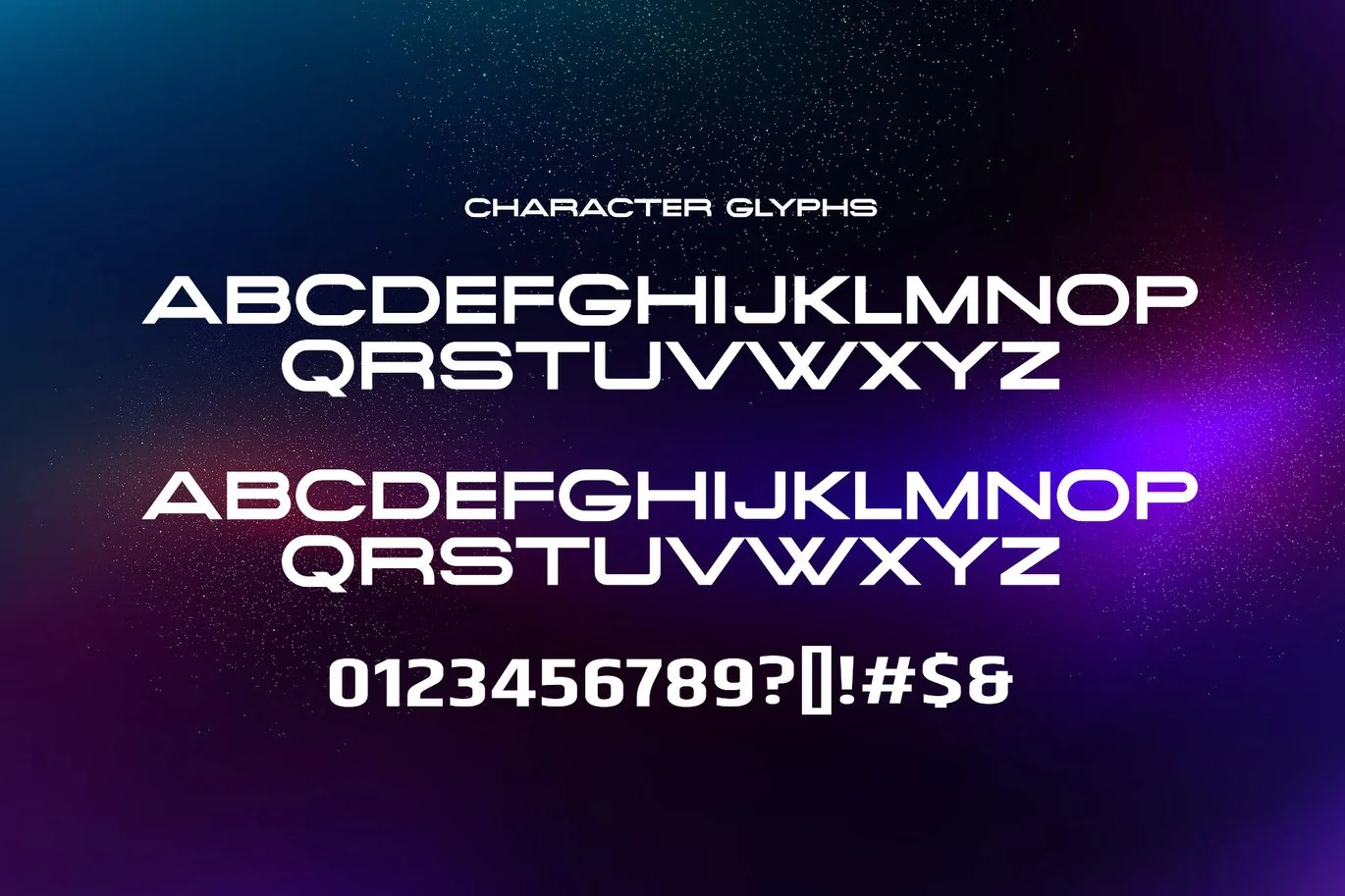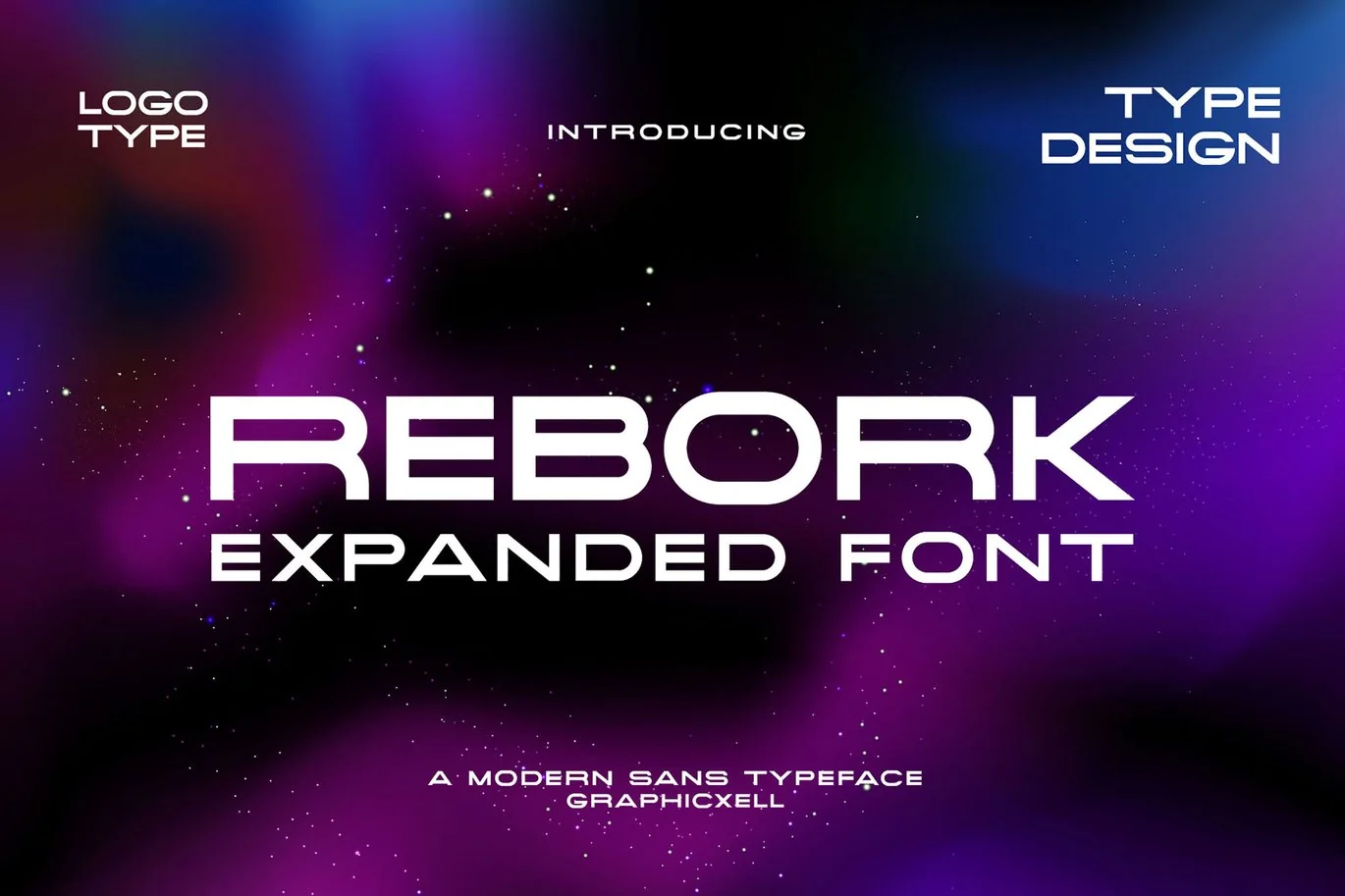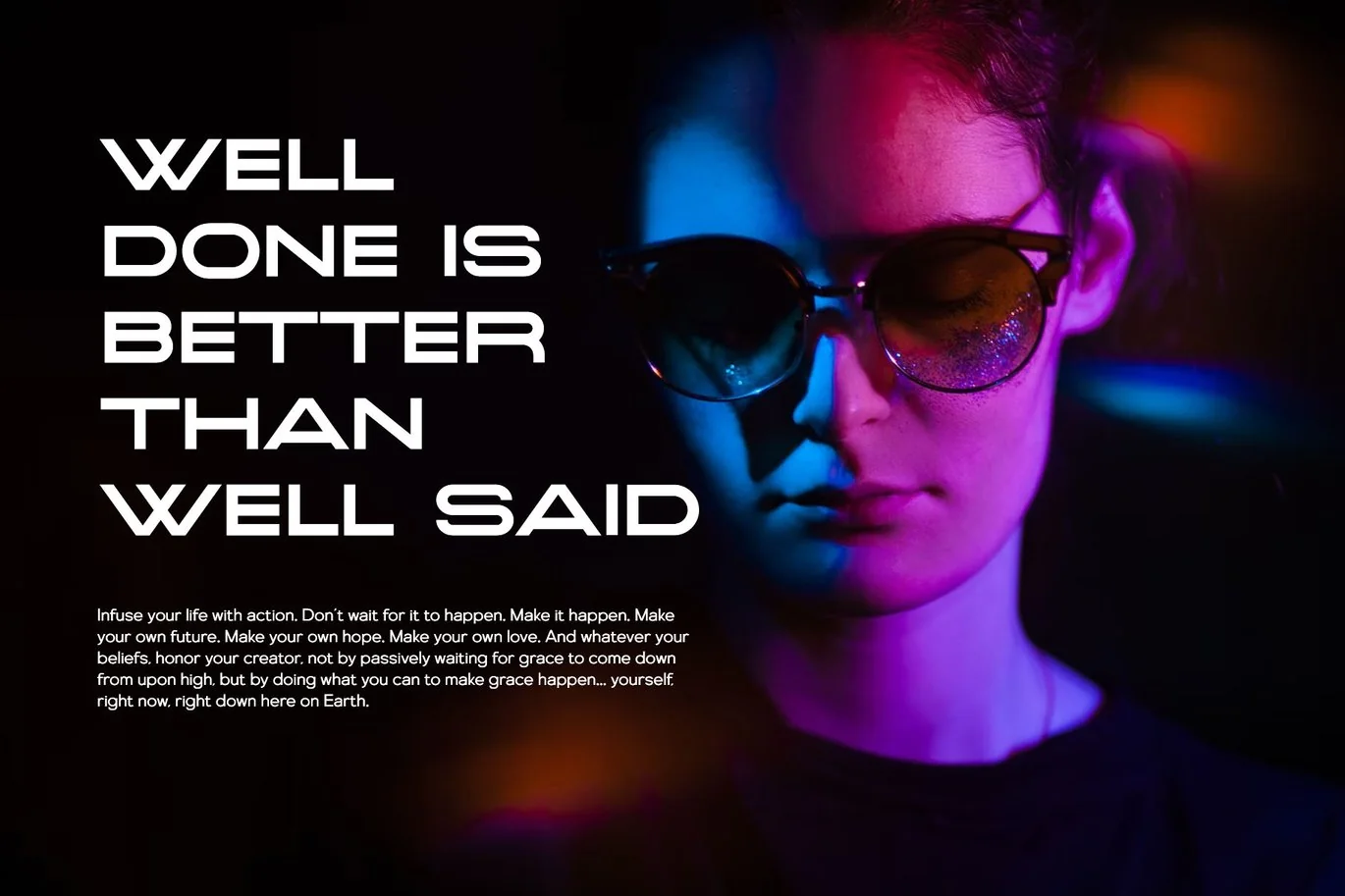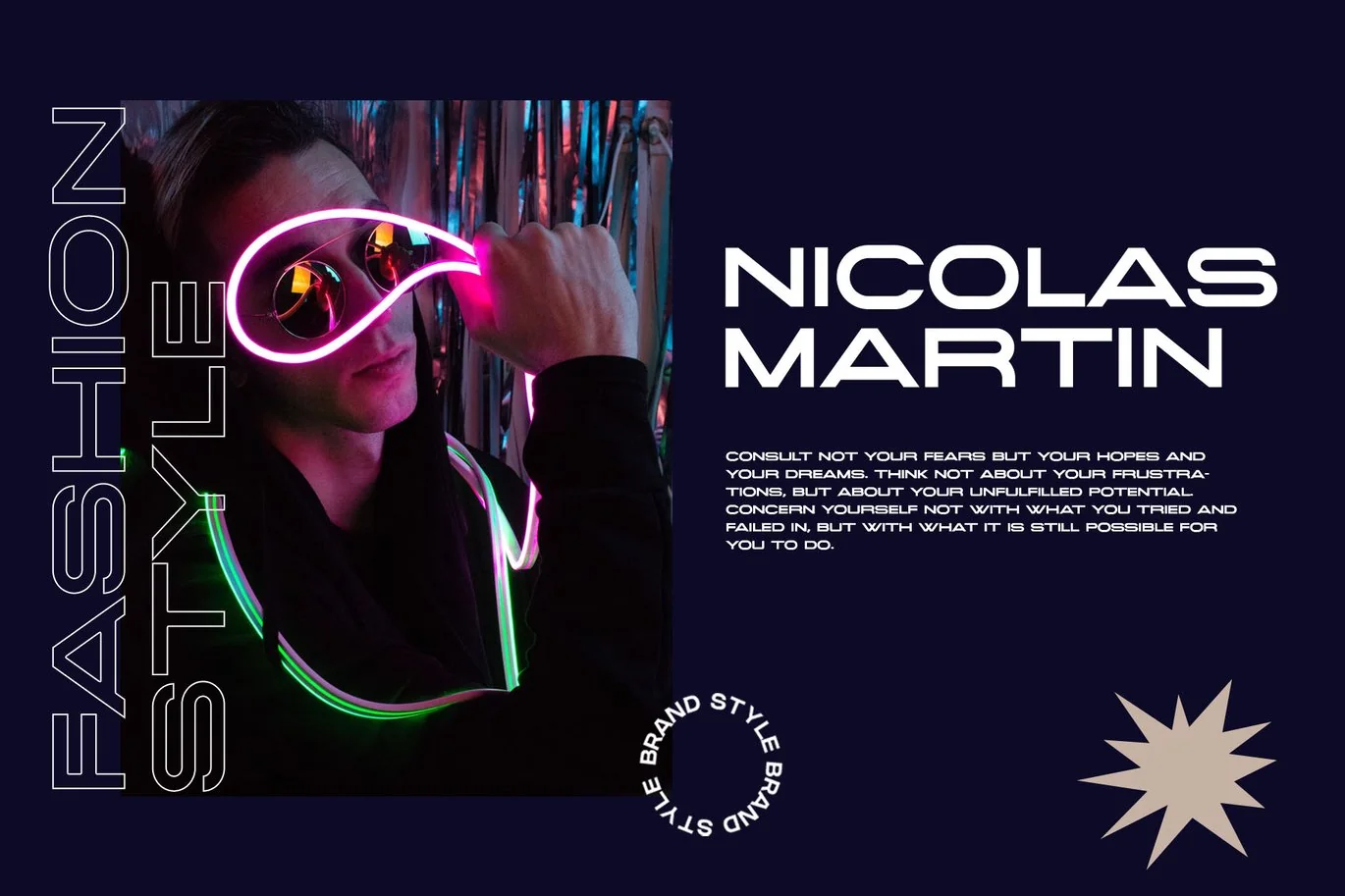
Rebork Expanded Modern Neon Sans Typeface
Rebork Expanded Modern Neon Sans Typeface inspired by the famous minimalist logo perfect for the purposes of designing templates, brochures, videos, advertising branding, logos, invitation, layout design, elegant crafting, beauty design and more.
Fonts include multilingual support